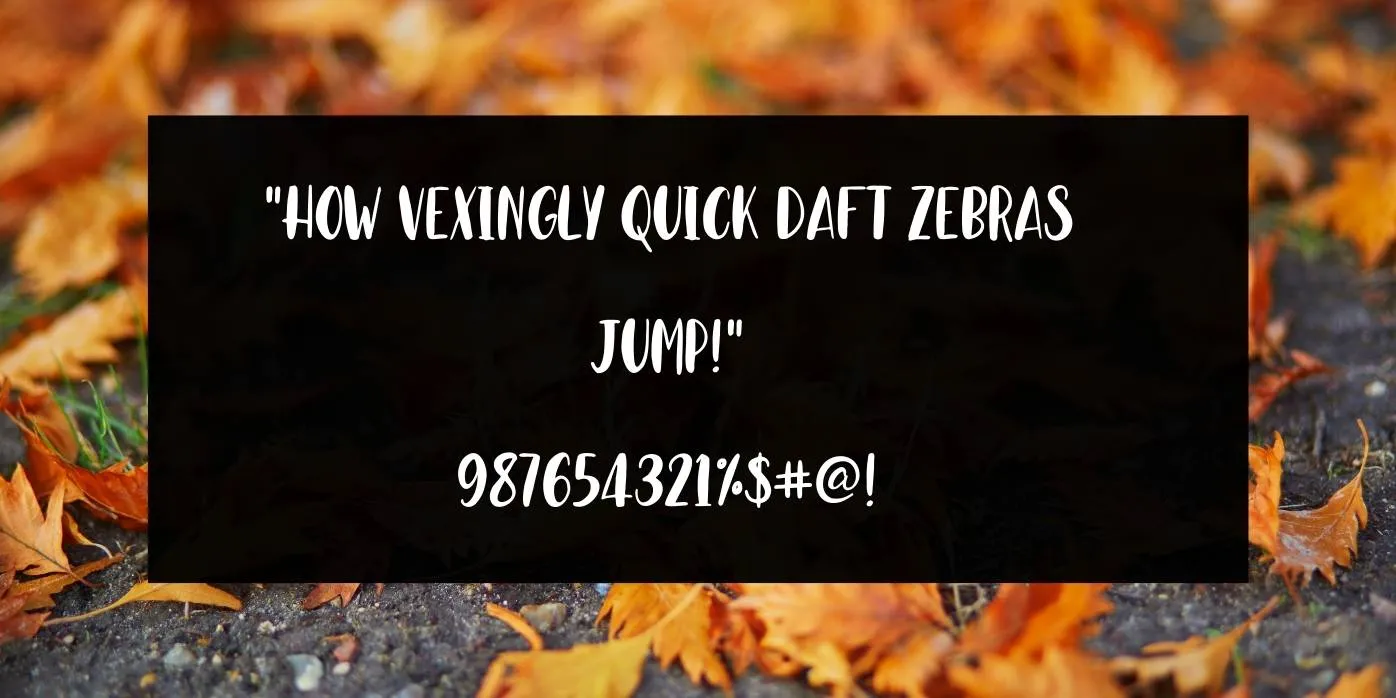
Leaves And Ground Font
The Leaves And Ground font is a script typeface that was created by StereoType in 2013. The font was designed to be used for both digital and print media. The leaves and ground artist has also created other fonts, including the popular Sans-serif Font. The font is available in two weights, light and regular.